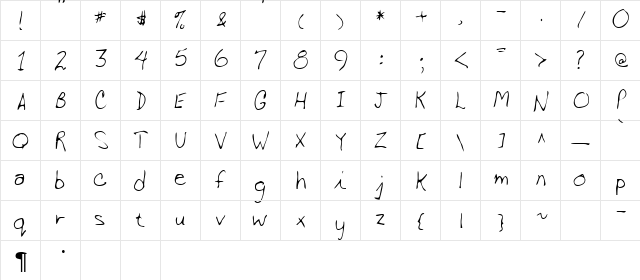
Arbor Regular
Design Context for Arbor Typeface
Arbor takes a measured approach to typography — its balanced proportions and neutral character make it a reliable workhorse for both digital and print work.